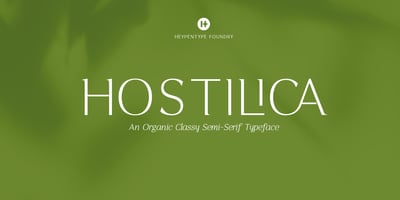
Hostilica
Hostilica font
Hostilica Font Family was designed by Rofiki Anas Maruf and published by Heypentype. Hostilica contains 6 styles and family package options. Hostilica is a semi-serif family designed by mixing classic serifs in the age of romanticism era with contemporary modern shape and curves. It gives a warm, friendly, and inviting feeling without losing a formality of text fonts. Every weight was designed carefully to provide a unique look while maintained the unity of the type family. A thin weight gives your content an elegant, luxurious design feel. While the regular weight, designed for body text, gives your content a warm and friendly design feel. The bold weight will make your headlines stand-out with its fat counters and curves. Therefore, Hostilica will accomodate all your design needs, from text to display, from catchy to luxury. The italics of each weight will spice up your design project especially with letter ‘f,s,r,k, and y’. Those italic versions paired with alternate and discretional ligatures will add an organic feeling to your designs. The italic styles are designed by emulating a handwriting stroke, and will give a more personal feel while still maintained a formal sense.